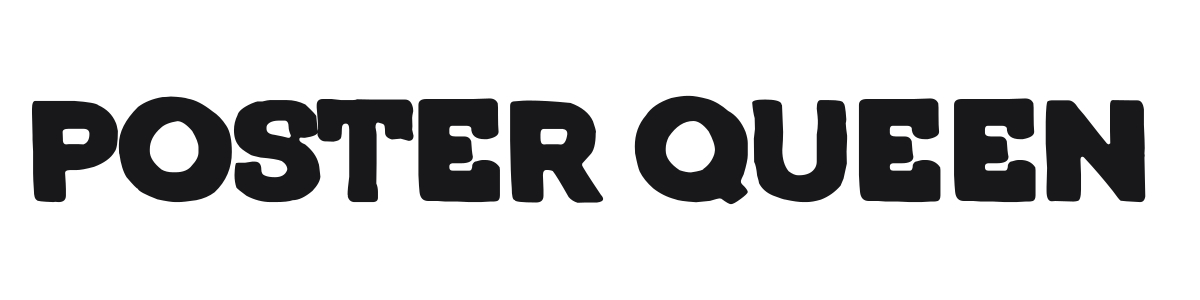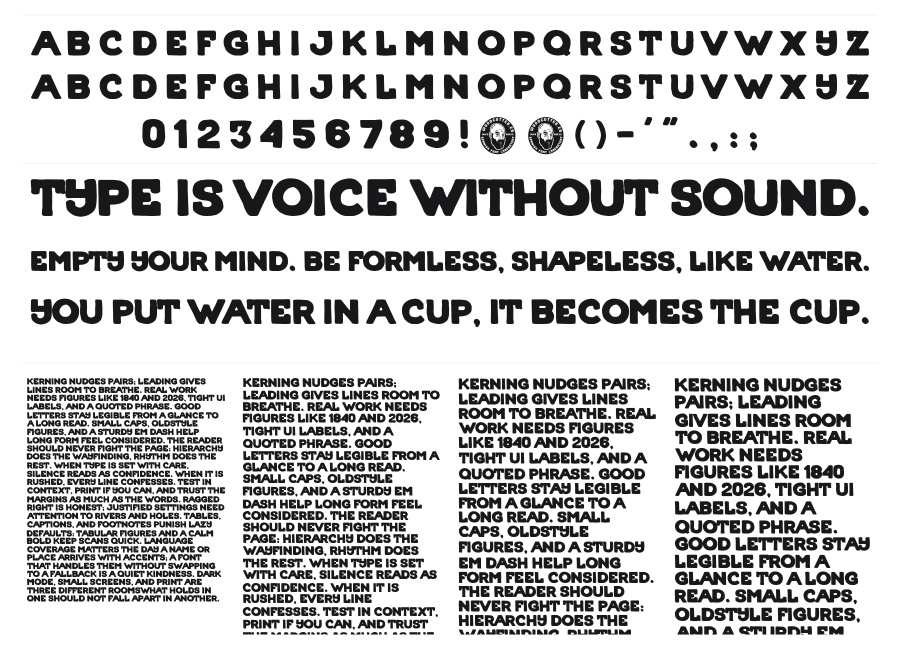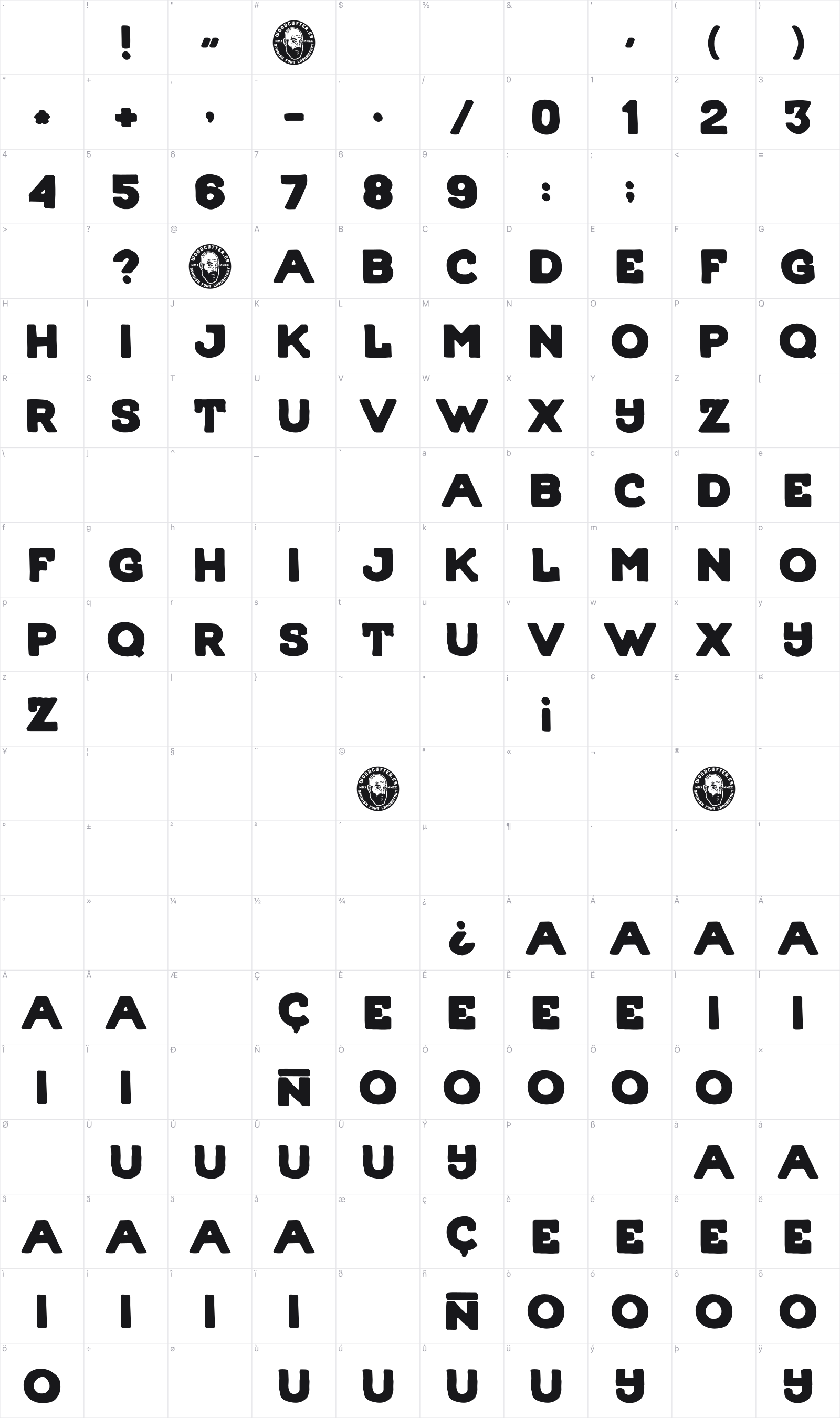
Poster Queen
Poster Queen is a heavy, wide display sans with rough inked edges and chunky proportions that feel pulled straight off a retro screen-print. The irregular outlines and slightly rounded corners give it a hand-stamped warmth that separates it from a clean geometric bold. Built for big, loud headlines where personality matters as much as impact.